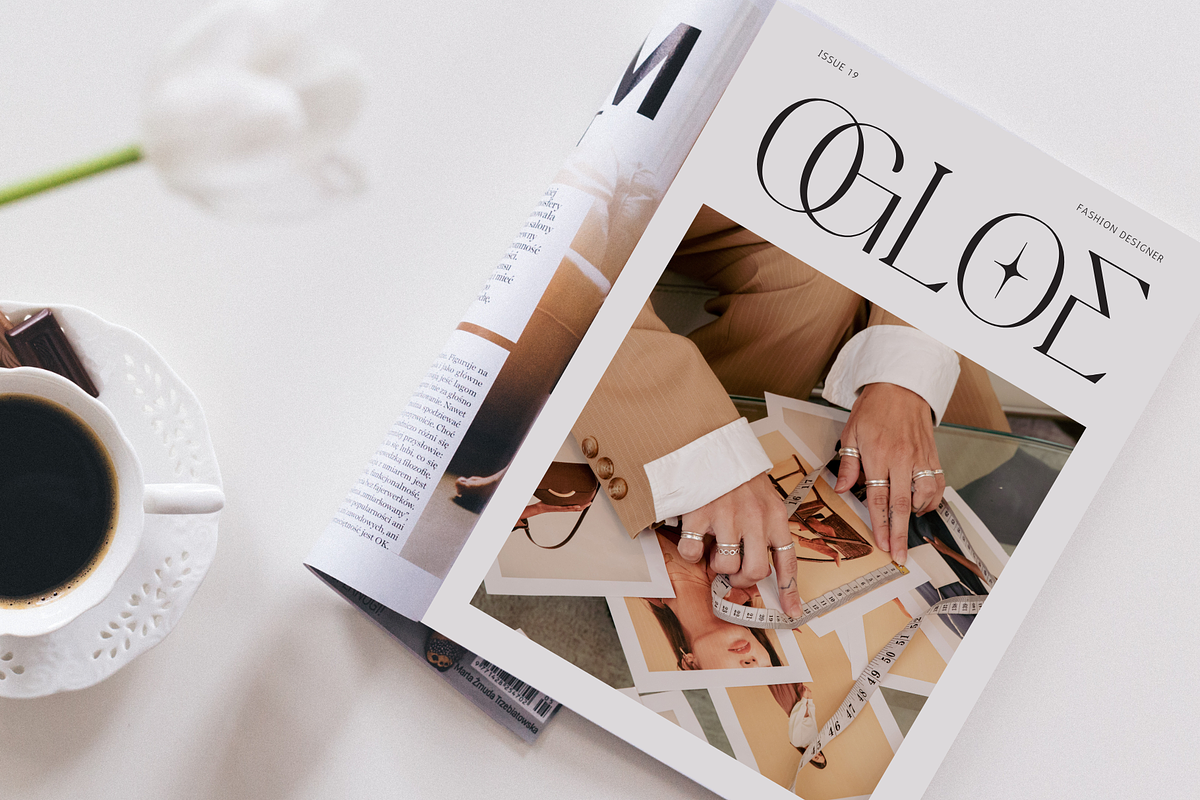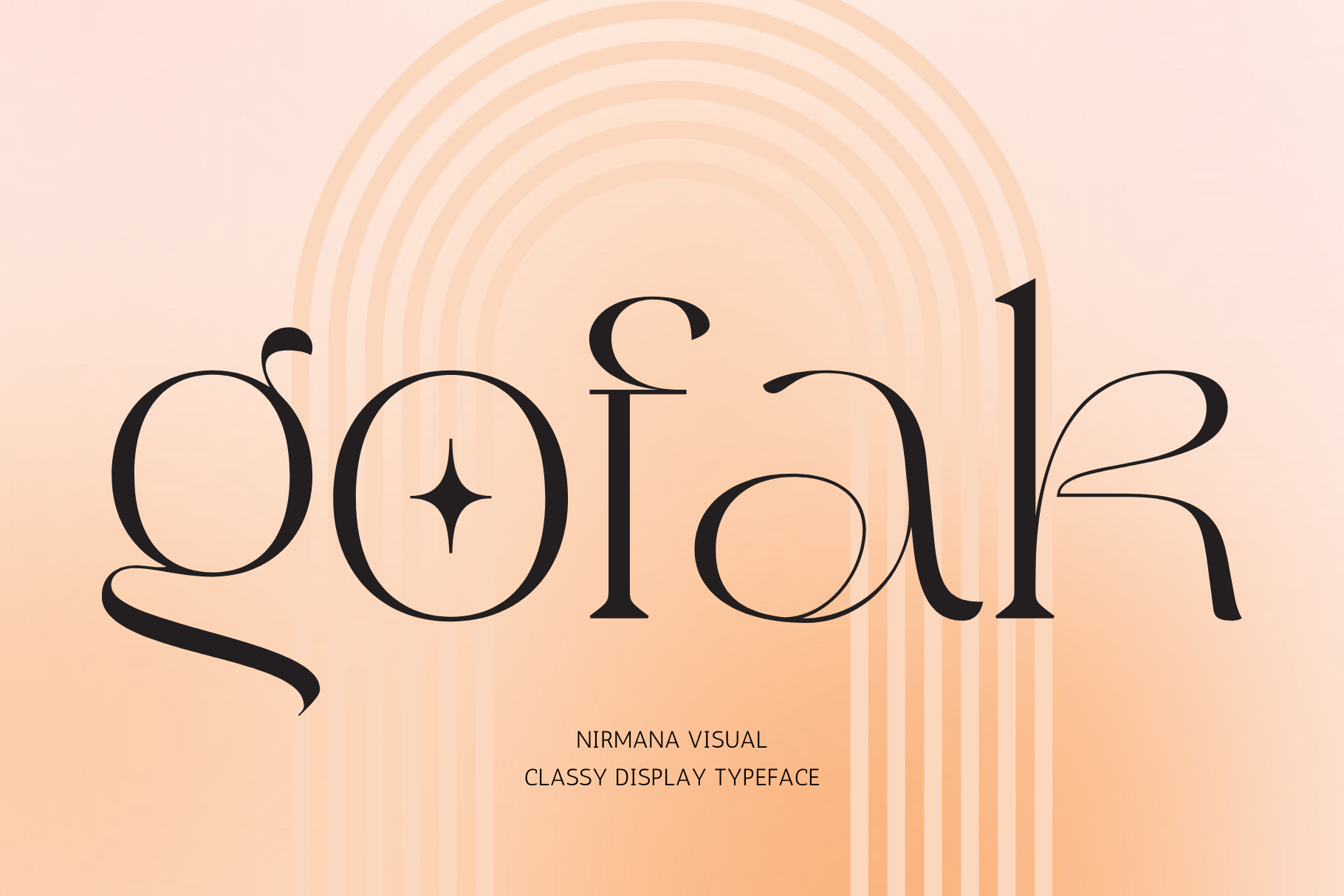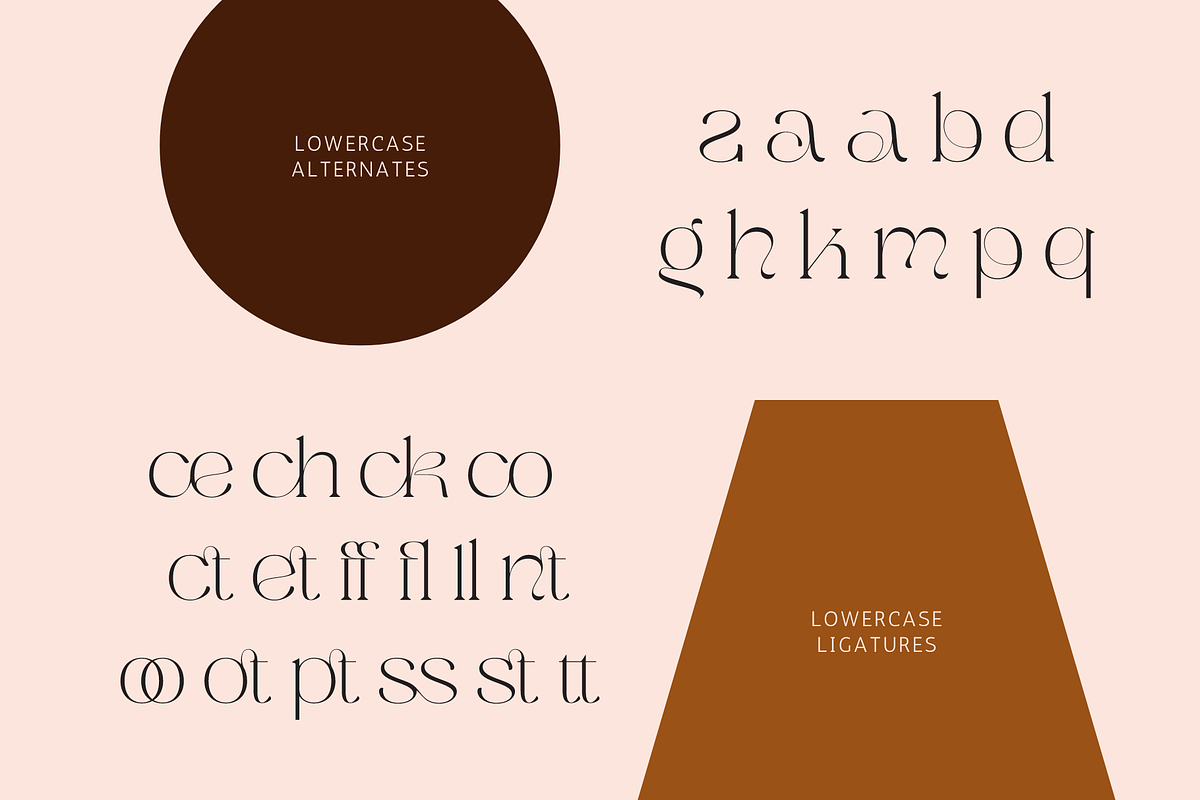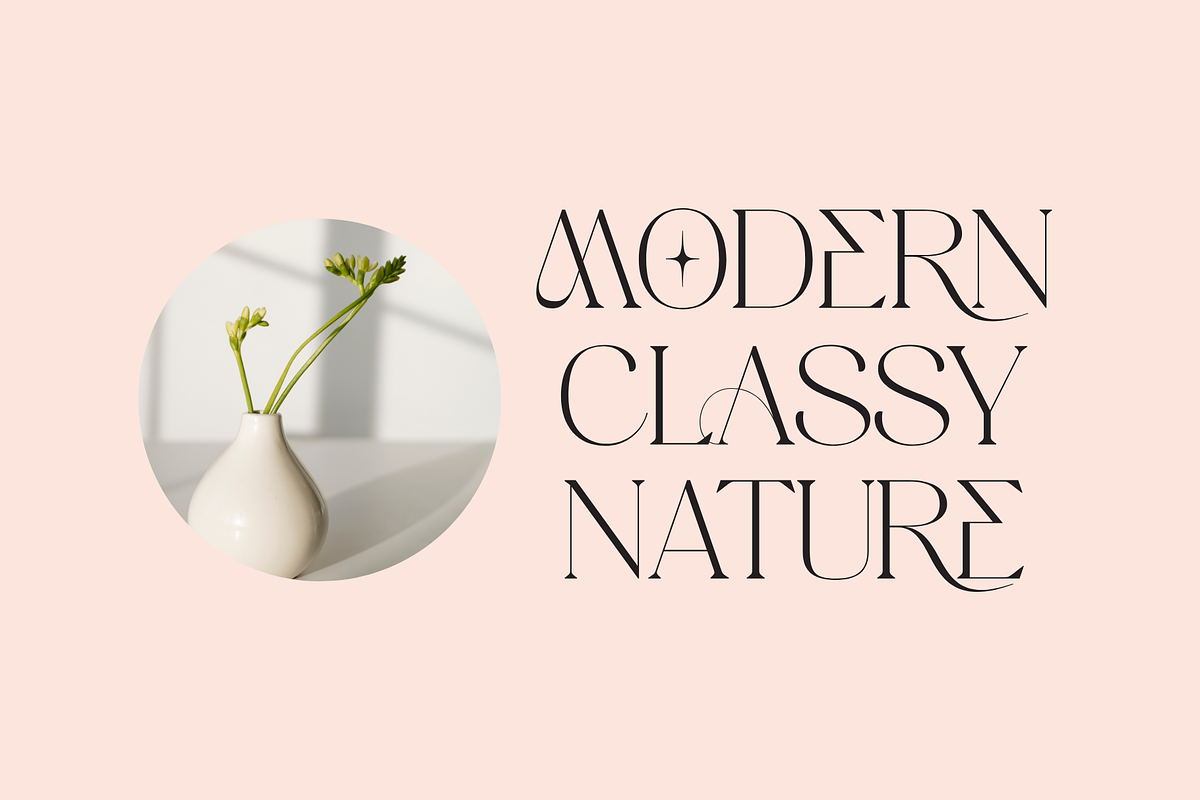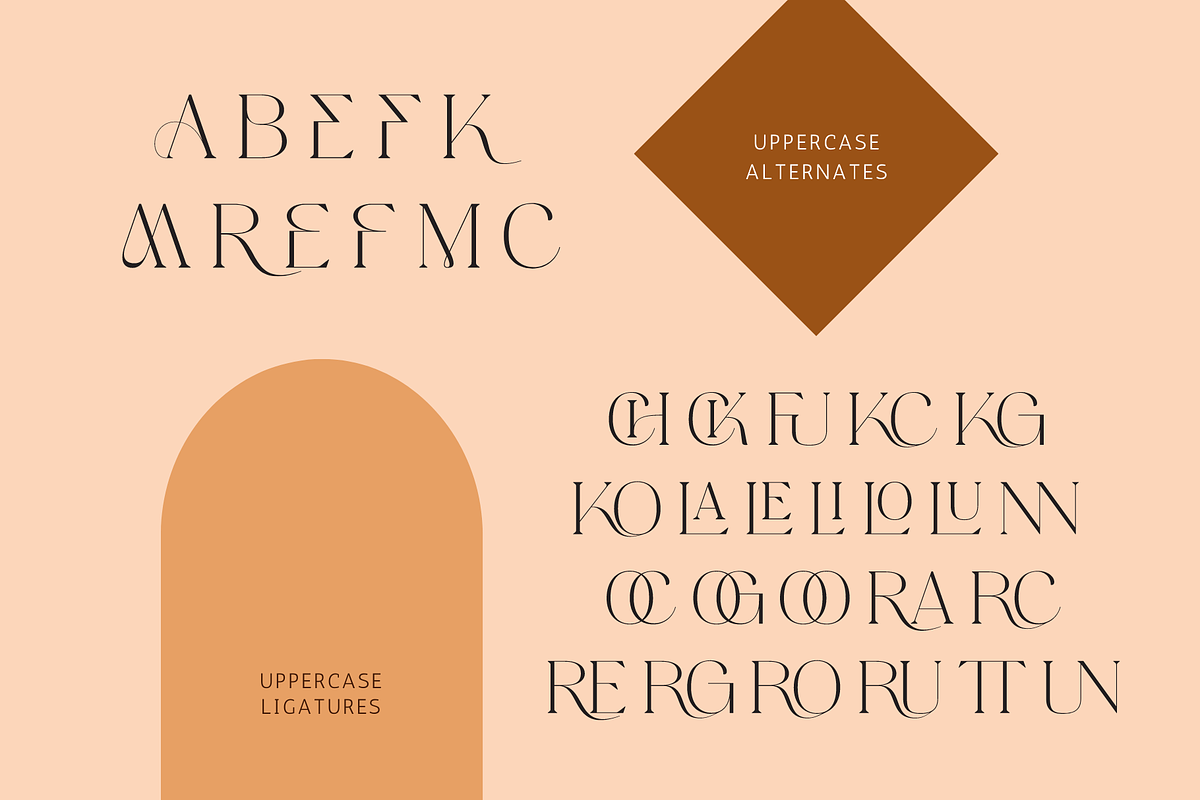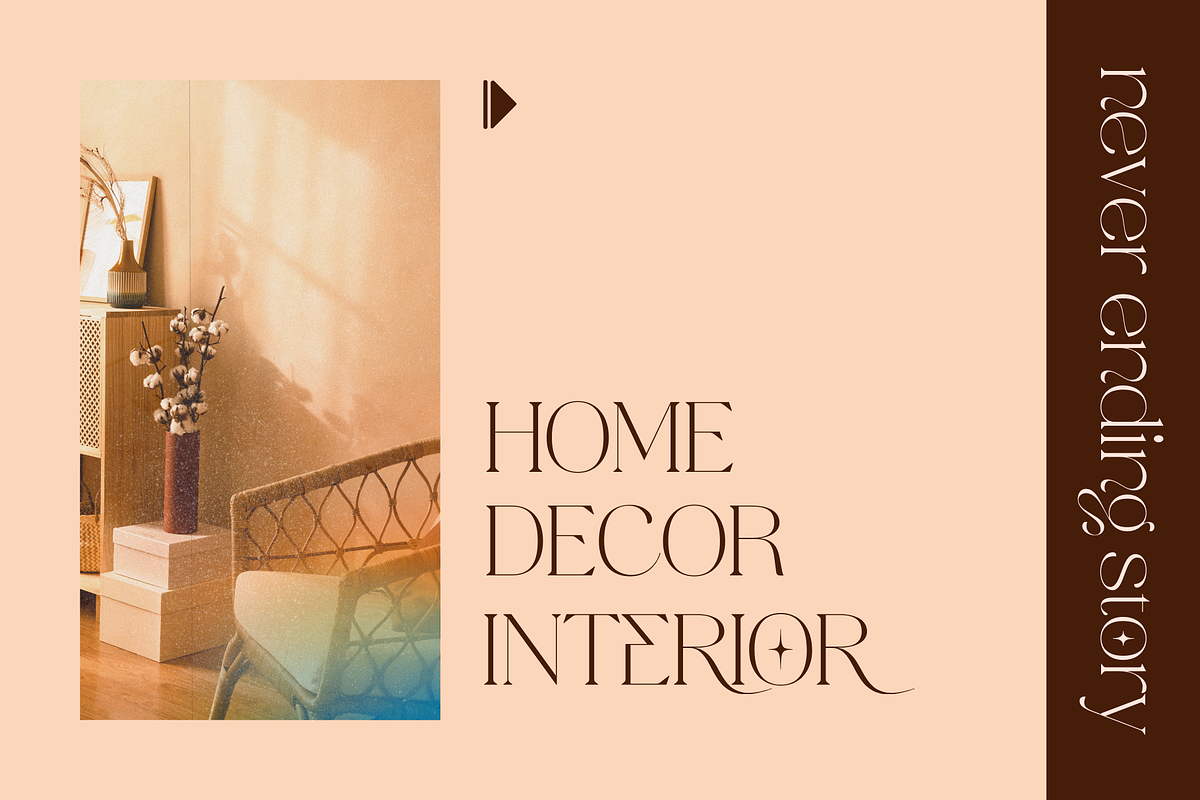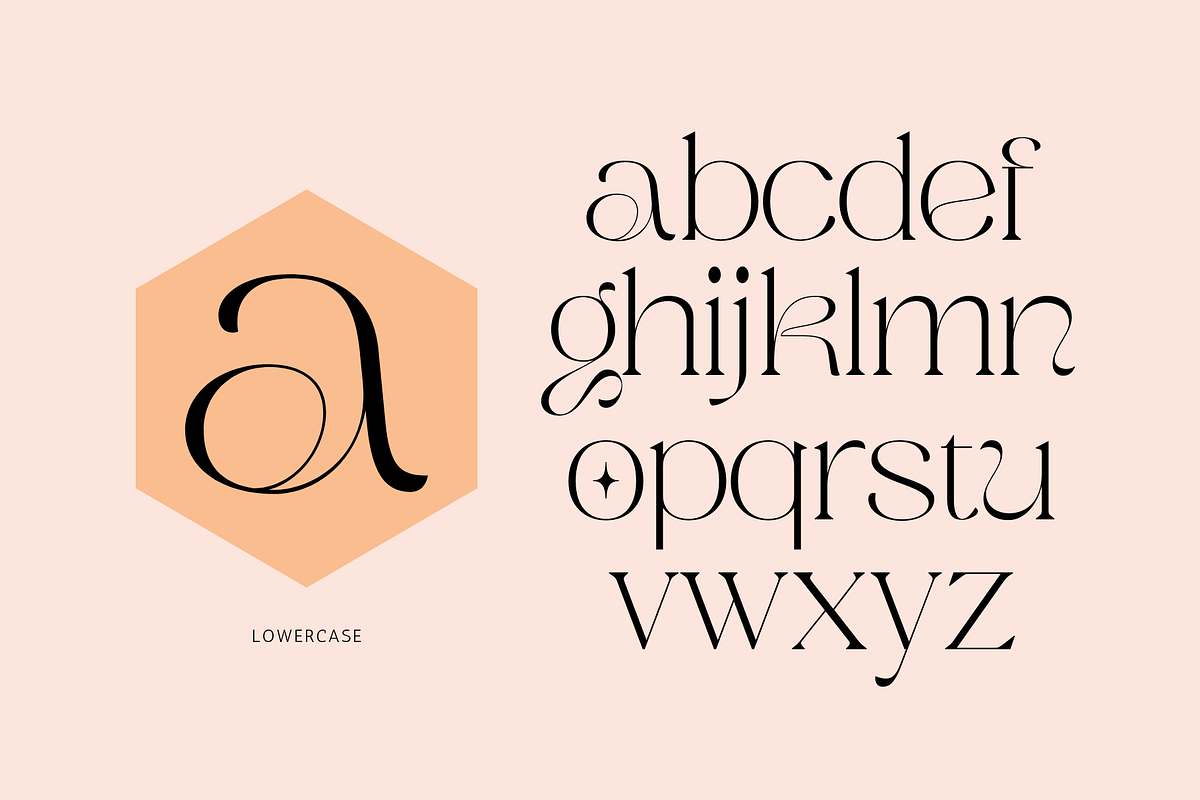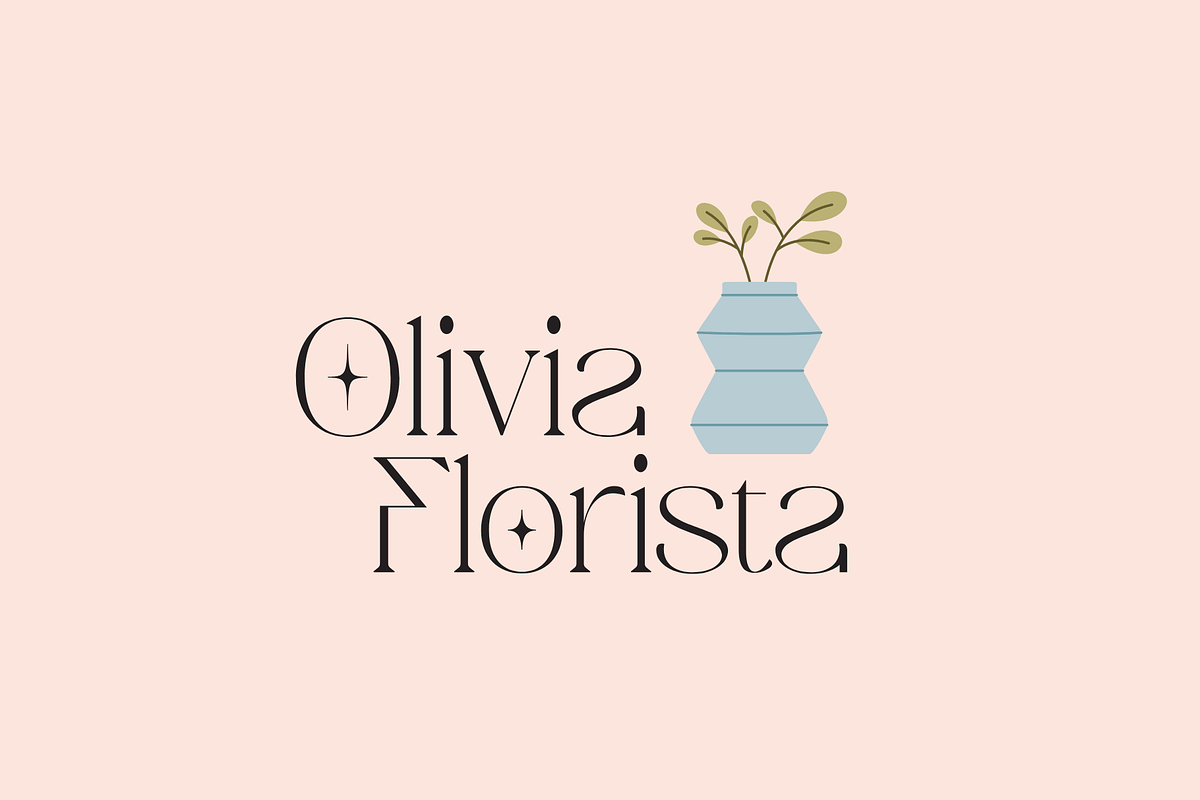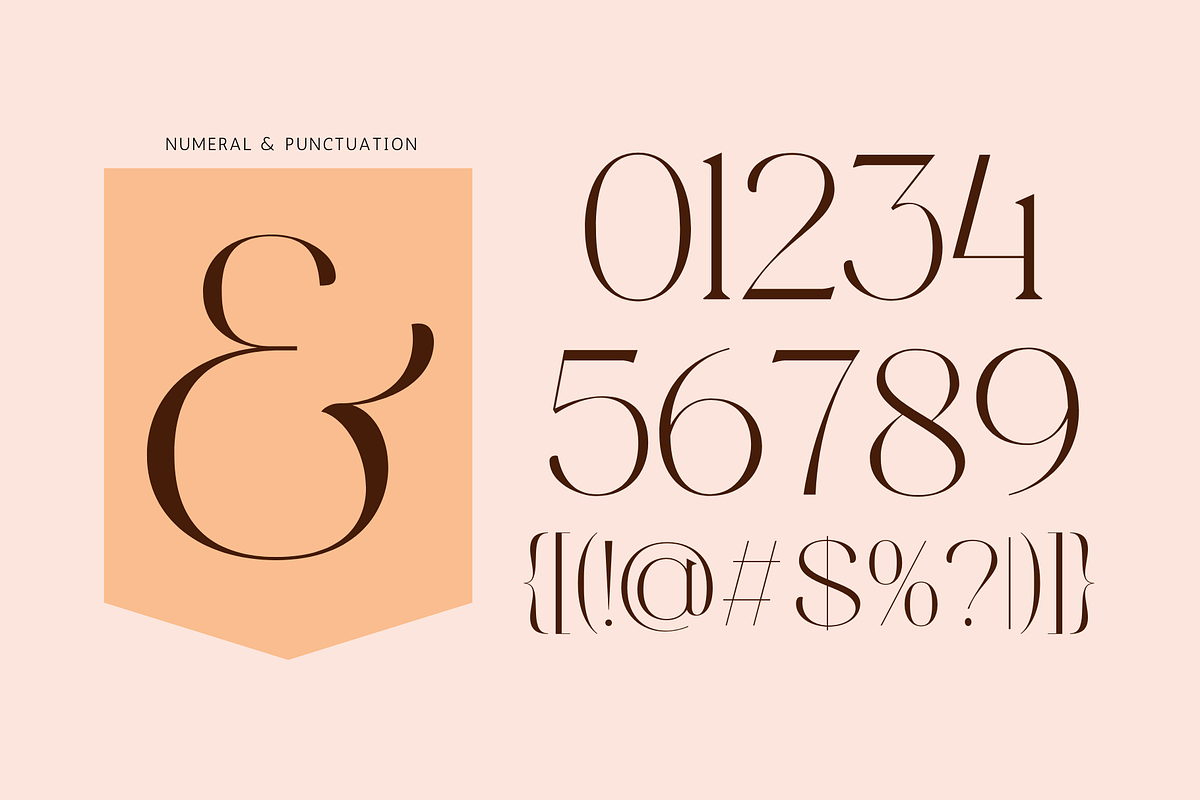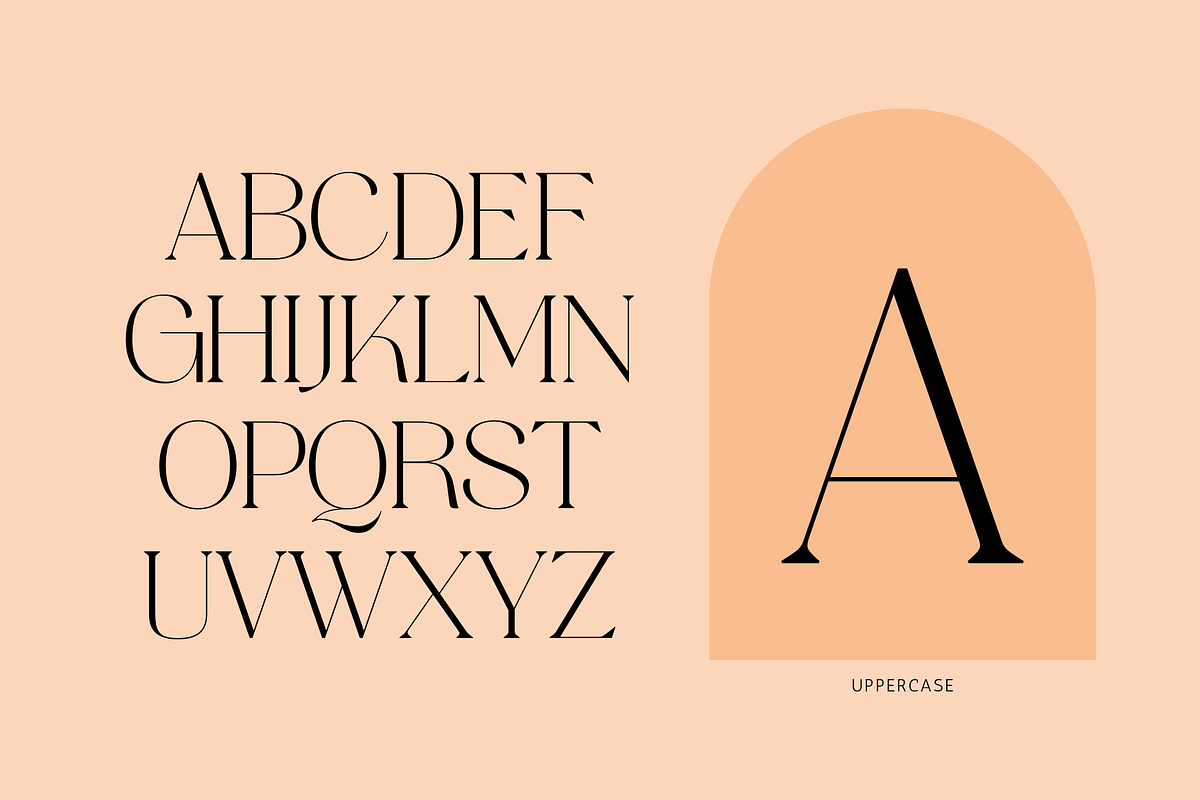
Gofak Classy - Branding Logo Font
Gofak Classy Font offers beautiful typographic harmony for a diversity of design projects, including logos & branding, social media posts, advertisements & product designs.